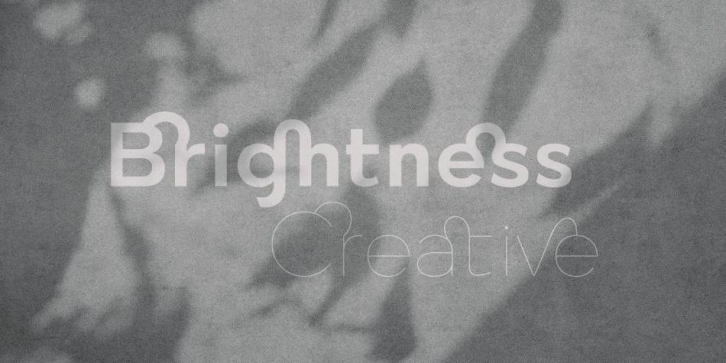
Quickflio is a sans serif font family. This typeface has nineteen styles and was published by Brenners Template.
A font family with excellent visibility and aesthetic originality was developed after years of troubleshooting.
It will be the best choice for designers as it contains a variable font with two axes.
A variety of styles, including stem widths from 10pt to 220pt, will be an exciting attempt for unique typography.
And, 44 beautiful and amazing ligatures will make your imagination deeper and richer. On the Typographic Foundation, it makes sense to break most of the ligatures used here into discretionary ligatures. However, in view of the trend of modern typography, in which the essential boundary between function and decoration is increasingly blurred, it may be meaningful to use them together.
All ligatures of this font family are included in Standard Ligatures. Your choices become easier and clearer.
Its name is Quickflio.
OpenType Features
- 44 Ligatures : Am, An, Br, Cr, Gr, Le, Lo, Op, ad, am, an, at, ba, ck, ct, da, de, do, er, es, ff, fo, fi, fl, gh, ha, hn, hs, in, le, ll, lo, ma, ns, oe, om, on, re, sh, st, um, un, ve, wa
- Ordinals
- Oldstyle Figures
- Tabular Figures
- Fractions
- Scientific Inferiors
- Superscrpt